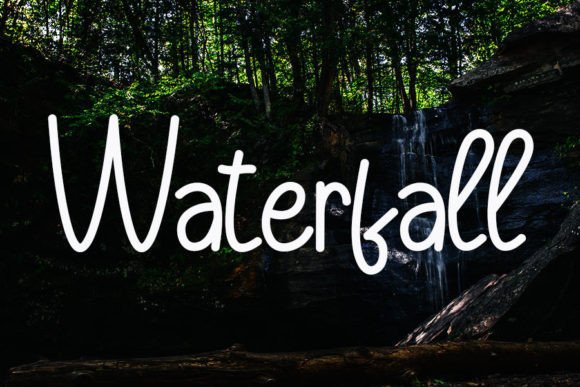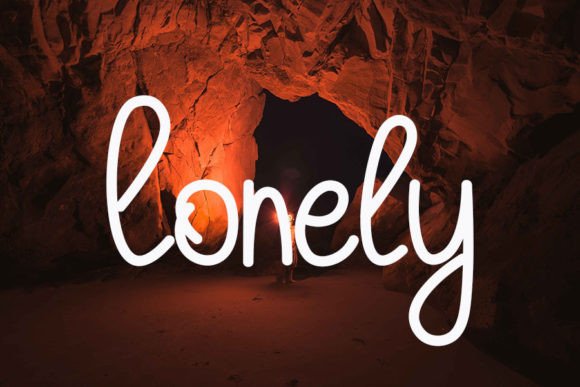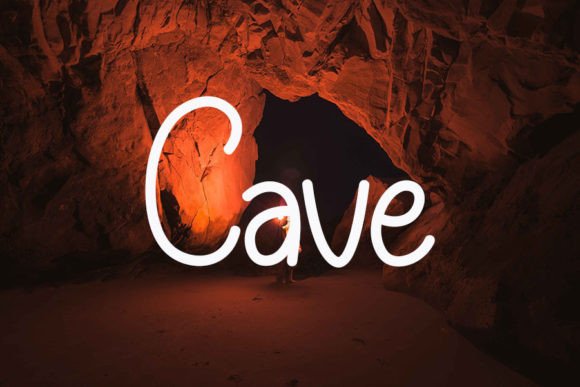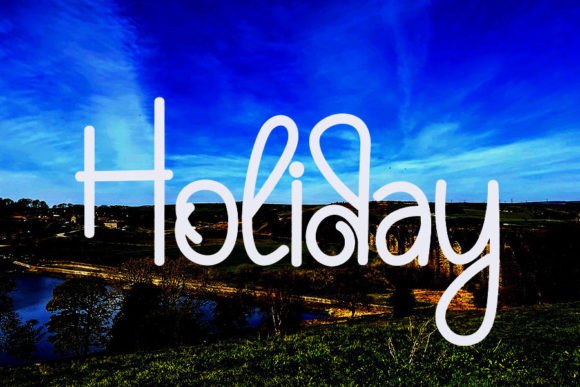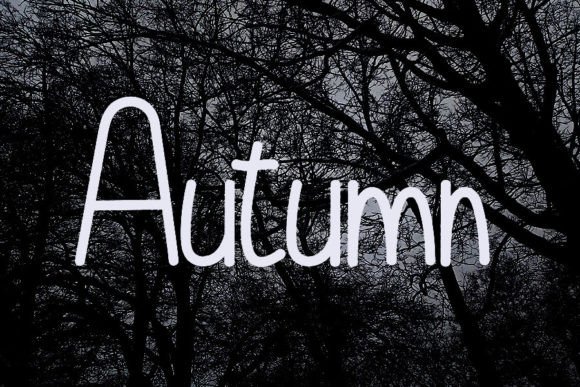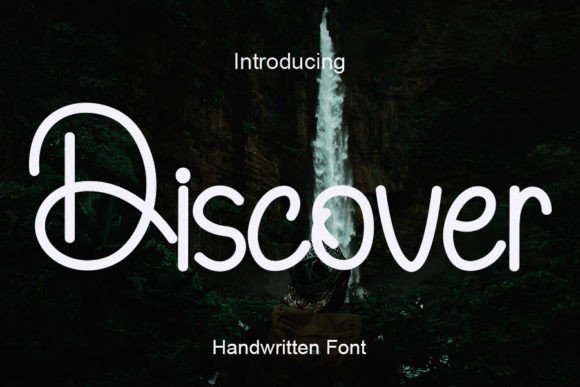
Discover Font: Elevate Your Designs with Elegance and Timeless Style
Are you on the hunt for a font that adds a touch of elegance and sophistication to your designs? Look no further than the Discover font, a beautiful handwritten font that is sure to capture your heart. With its distinct and timeless style, Discover is perfect for designers and crafters looking to create stunning visuals that stand out from the crowd.
The Beauty of Discover Font
Discover is a neat and beautiful handwritten font that boasts an elegant touch, making it ideal for a wide range of projects. Whether you’re working on a logo, branding materials, or social media graphics, this font is sure to impress. Its unique and classic style ensures that your designs will remain relevant for years to come, and its versatility makes it suitable for various design applications.
Key Features of Discover Font
- Elegant and Refined: Discover font features an elegant and refined design that adds a touch of sophistication to any project.
- Handwritten Style: The font’s handwritten style gives it a personal and organic feel, making it perfect for designs that require a human touch.
- Distinct and Timeless: Discover’s distinct and timeless style ensures that your designs will stand out and remain relevant for years to come.
- Versatile: This font is suitable for a wide range of design applications, from logos and branding materials to social media graphics and more.
Why Choose Discover Font?
There are many fonts available, but Discover stands out from the rest due to its unique characteristics and benefits. Here are just a few reasons why designers and crafters love Discover:
- Easy to Read: Despite its elegant and refined design, Discover font is easy to read, making it perfect for body text and headlines.
- Highly Legible: The font’s clear and concise design ensures that your message is conveyed effectively, even at small sizes.
- Customizable: Discover font can be easily customized to fit your design needs, allowing you to adjust the size, color, and style to suit your project.
Using Discover Font in Your Designs
Discover font is perfect for a wide range of design projects, including:
- Social Media Graphics: Elevate your social media presence with stunning graphics that feature the Discover font.
- Invitations and Stationery: Add a touch of elegance to your invitations, business cards, and other stationery with Discover font.
- Web Design: Use Discover font to create a beautiful and cohesive web design that reflects your brand’s identity.
Tips and Tricks for Working with Discover Font
To get the most out of Discover font, here are a few tips and tricks to keep in mind:
- Pair it with Other Fonts: Experiment with pairing Discover font with other fonts to create a unique and visually appealing design.
- Adjust the Size and Color: Customize the size and color of Discover font to fit your design needs and create visual hierarchy.
- Use it for Headlines and Titles: Take advantage of Discover font’s elegant and refined design by using it for headlines and titles.
In conclusion, Discover font is a beautiful and elegant handwritten font that is perfect for designers and crafters looking to add a touch of sophistication to their designs. With its distinct and timeless style, Discover is sure to elevate your designs and make them stand out from the crowd. Whether you’re working on a logo, social media graphics, or web design, Discover font is a versatile and highly legible choice that is sure to impress.